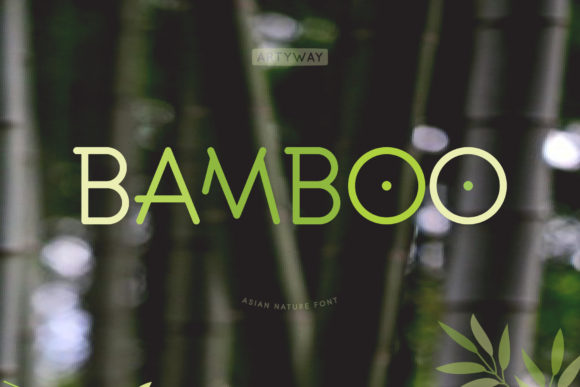
Bamboo Font: A Powerful Display Font Inspired by Asian Culture
In the world of typography, fonts play a crucial role in conveying messages, evoking emotions, and creating visual identities. Among the numerous fonts available, Bamboo Font stands out as a powerful display font that draws inspiration from Asian culture. With its unique blend of cleanliness, lightness, depth, and mystery, Bamboo Font has become a popular choice for designers and artists seeking to add an exotic touch to their creations.
Bamboo Font: A Brief Overview
Bamboo Font is a display font that embodies the essence of Asian culture, particularly the elegance and simplicity of bamboo. The font is designed to convey a sense of serenity, calmness, and sophistication, making it ideal for projects that require a touch of refinement and poise. With its clean lines, subtle curves, and balanced proportions, Bamboo Font exudes a sense of lightness and airiness, while its intricate details and nuanced texture add depth and mystery.
Key Design Features of Bamboo Font
- Cleanliness: Bamboo Font boasts clean lines, free from unnecessary embellishments, ensuring excellent legibility and readability.
- Lightness: The font’s light and airy texture creates a sense of openness, making it perfect for designs that require a carefree and effortless feel.
- Depth: Bamboo Font’s intricate details and nuanced texture add a sense of depth, creating a visually appealing contrast that captures the viewer’s attention.
- Mystery: The font’s subtle curves and balanced proportions evoke a sense of mystery, inviting the viewer to explore the design further.
The Asian Inspiration Behind Bamboo Font
Bamboo Font draws inspiration from the rich cultural heritage of Asia, where bamboo is a symbol of strength, resilience, and harmony with nature. In many Asian cultures, bamboo is revered for its versatility, sustainability, and beauty, often featuring in art, literature, and architecture. The font’s design reflects this cultural significance, incorporating elements that reflect the elegance, simplicity, and sophistication of Asian aesthetics.
Uses and Applications of Bamboo Font
Bamboo Font’s versatility makes it suitable for a wide range of design projects, including:
- Logos and branding: Bamboo Font’s unique blend of elegance and simplicity makes it an excellent choice for logos and branding materials.
- Advertising and marketing: The font’s eye-catching design and excellent legibility make it perfect for advertising and marketing campaigns.
- Packaging and product design: Bamboo Font’s clean lines and subtle curves create a visually appealing contrast, making it suitable for packaging and product design.
- Art and illustration: The font’s intricate details and nuanced texture make it an excellent choice for artistic projects, such as illustrations and typographic art.
Tips for Effective Use of Bamboo Font
To maximize the impact of Bamboo Font, consider the following tips:
- Pair with contrasting fonts: Combine Bamboo Font with contrasting fonts to create visual interest and emphasize key messages.
- Use in moderation: Due to its intricate details, Bamboo Font works best in moderation. Use it sparingly to avoid overwhelming the design.
- Experiment with colors: Bamboo Font’s clean lines and subtle curves create a versatile canvas for experimenting with different colors and textures.
In conclusion, Bamboo Font is a powerful display font that draws inspiration from Asian culture, combining cleanliness, lightness, depth, and mystery. Its unique design features and versatility make it suitable for a wide range of design projects. By understanding the font’s characteristics, uses, and applications, designers and artists can harness the creative potential of Bamboo Font to create stunning visual identities that evoke the elegance and sophistication of Asian aesthetics.